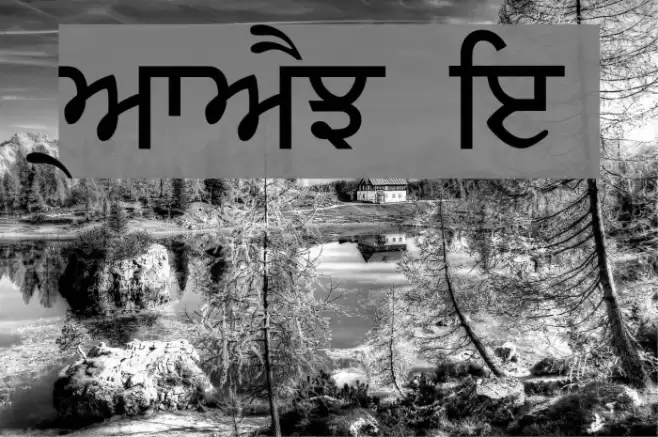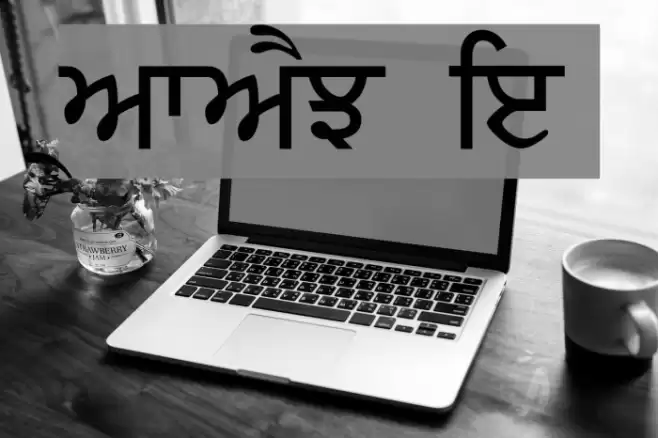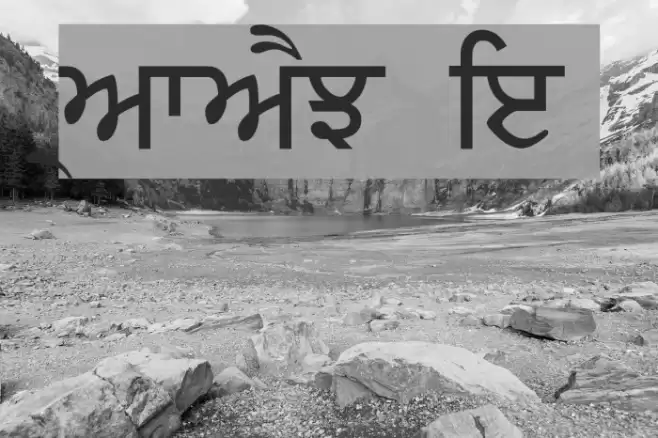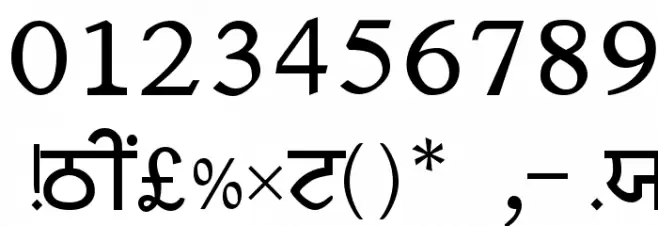
NEWP Font
NEWP Description
A clean, geometric Gurmukhi script font with consistent stroke thickness, open counters, and clear character shapes. The numerals and punctuation are harmonized with the script, and the overall appearance is modern and legible.
Modern, geometric Gurmukhi script with even strokes and high legibility from Asian fonts.
- Use Case: Body text, headlines, educational content, user interfaces.